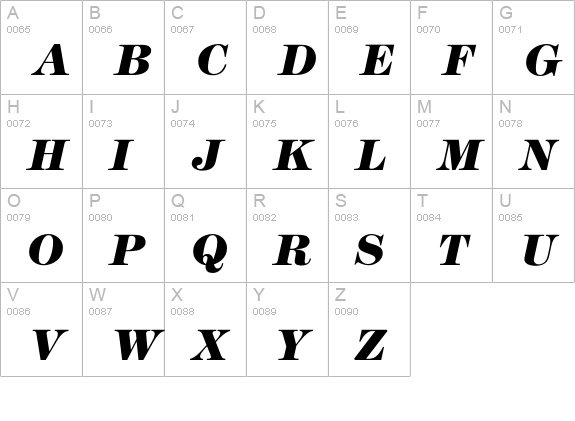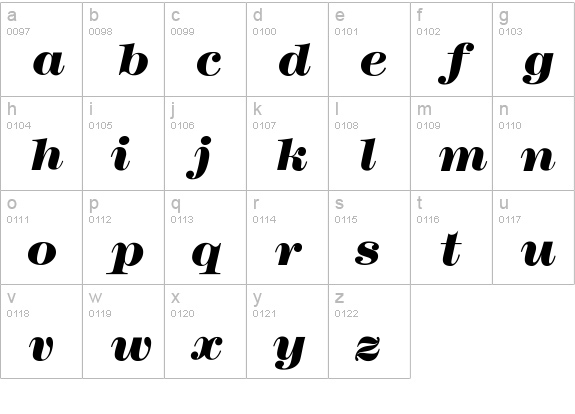
ModernHeavyItalic Font Details
Introducing ModernHeavyItalic font - a versatile and elegant typeface that exudes sophistication and modernity. Its bold and slanted design adds a touch of flair to any creative project, making it perfect for headlines, branding, and editorial design. The ModernHeavyItalic font strikes the perfect balance between contemporary style and classic elegance, making it a must-have in any designer's toolkit. Best of all, this stunning font is available for free download at FontsMarket.com. Get your hands on this sleek and stylish typeface today and take your designs to the next level!